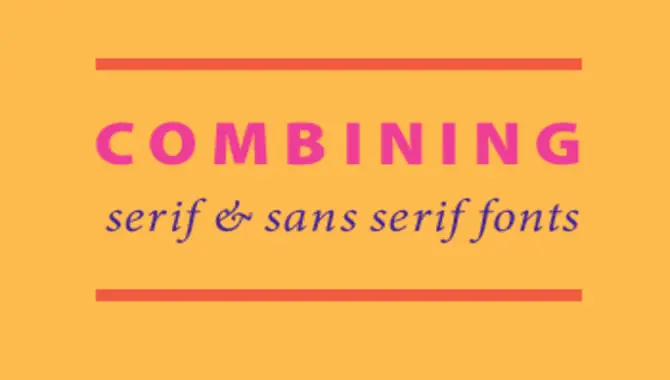
Typography is the art of arranging type that gives visual expression to the message being conveyed. Good typography helps ensure that what a brand or a business wants to express is communicated clearly and effectively. In contrast, lousy typography can confuse the audience or damage its brand reputation.
Every business has a different typeface requirement based on its size, target audience, and product. While knowing how to use typefaces in your design is essential for getting a job done right, knowing when and how to get the best results is equally valuable.
This blog discusses pairing fonts according to typography, font classification, readability hierarchy, weight difference, mood difference, combination rules, etc. Read through it carefully, and you’ll be well on becoming a font expert.
Pair Fonts According To Typography
Typography refers to the specific details of letterforms and typefaces. These details can include font weight, style, and size. Typeface weight refers to the thickness of a typeface. You can easily read a light-weight font on a computer screen, but it may be too thin for print. Styles are different shapes or endings for a typeface.
Regarding font pairing, weight is one of the most critical factors. Fonts with similar weight will be easier to read and make your content look unified and consistent. You can choose fonts with different weights for different parts of your content, but remember that you don’t want them to be too distant.
Combine A Serif With A Sans Serif.
Pairing fonts to create a more effective typographic arrangement can be challenging. Pair serif fonts with serif fonts for a more balanced look. For an elevated look, one should generally pair sans-serif fonts with serif fonts.
However, the proper font combination can be subtle and nuanced, and it is often a matter of trial and error to find the right pairing for a particular design. In most cases, combining fonts with different characteristics will create a more compelling visual appeal.
When pairing fonts, consider their typeface characteristics and intended use. For a more balanced look, pair serif fonts with serif fonts, and pair sans serif fonts with serif fonts for an elevated look.
Remember that font pairing is a creative process and requires patience and experimentation to find the perfect combination for a given project. Using different font combinations, you can create visually appealing text with unique visual cues and readability.
Avoid Similar Classifications.
When pairing fonts, it is essential to pay attention to typography. Fonts classified as “serif” or “sans serif” can clash when used together. Avoid pairing fonts with similar classifications and instead pair fonts with different weights and stylistic features.
For example, if you pair both serif and sans serif, try pairing them with fonts with different font weights (such as light and bold) to create a more visually appealing composition. This will result in a more aesthetically pleasing combination of typeface styles.
Contrast Font Sizes.
When pairing fonts, it’s critical to use typeface sizes that contrast. Using different font sizes can help to focus the reader’s attention on key elements of your text. Contrasting font sizes can help to create a hierarchy in your text and help to establish a visual order between different pieces of content.
We can use typefaces with large letters for headings, titles, and other important text, and typefaces with smaller notes for detailed text.
It is a good practice to use both small and large typeface sizes in your text to ensure a balanced visual hierarchy. By pairing fonts that contrast with each other, you can create a compelling look for your text- a blog post or a corporate report.
Contrast Font Weights.
We can use font weights to create contrast in a typographic project. People typically use heavy fonts, such as bold typeface, for keywords or phrases in an essay or text, and use light fonts, such as serif typeface, for more general readers.
When pairing fonts for a typography project, it is essential to consider the weight and size of each font. When pairing fonts for an essay or text with bold typeface, use a font that is heavier than the typeface but lighter than body text; when pairing fonts for a heading or logo, use a font that is lighter than the typeface but heavier than the body text. We can use both rich and delicate fonts to add visual interest to a typography project.
Assign Distinct Roles To Each Font.
Assigning distinct roles to each font when choosing fonts for your project is essential. This will help create a balanced and harmonious typography. Avoid crowding the text with too many fonts by using each font for a specific task.
For example, use serif fonts for headings and serif and sans-serif fonts for titles and subheadings. Also, use different fonts for different text types, such as body copy vs. heading copy. In addition, consistently use fonts to create a professional and polished appearance.
5.How Do I Know When A Font Pairing Is Too Mismatched For A Particular Design Project?
Ans: When pairing fonts, it is essential to consider the typography of the project. Font pairing should be done in a way that is harmonious and complementary. When pairing fonts, it is helpful to consider each font’s weight, width, and style. Additionally, font pairing should be done based on the target audience for the project.